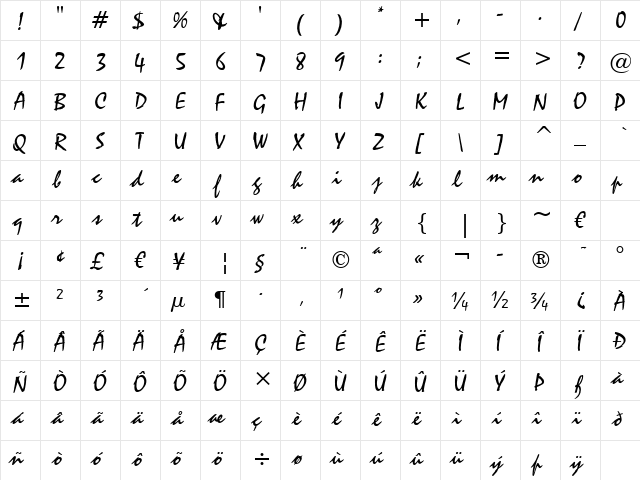
Staccato222 BT Regular
Staccato222 BT is a composed and adaptable typeface that performs quietly and consistently across a wide range of design contexts.